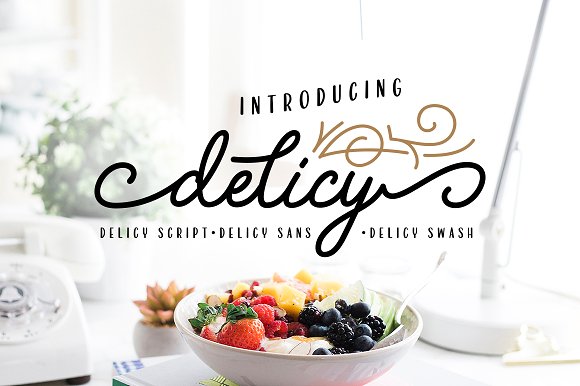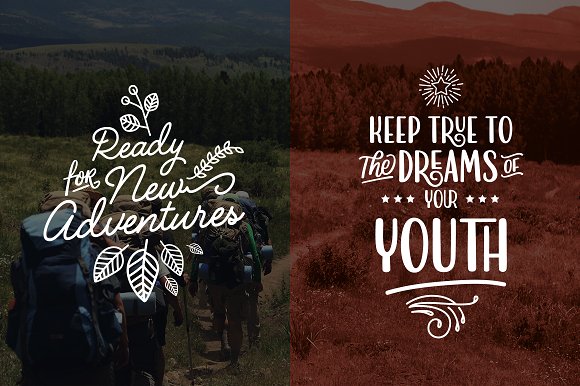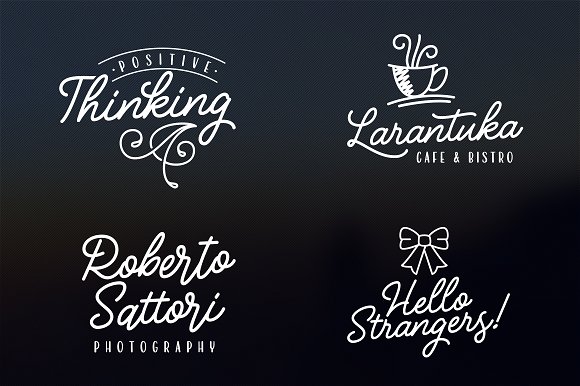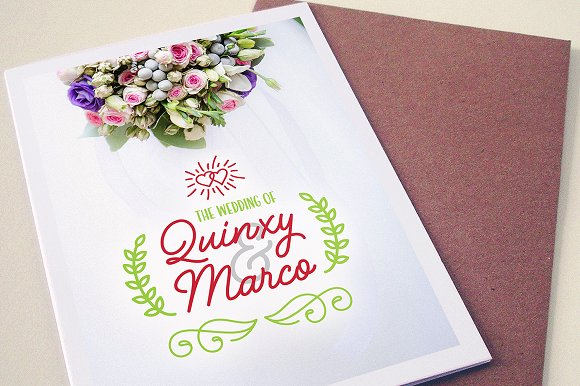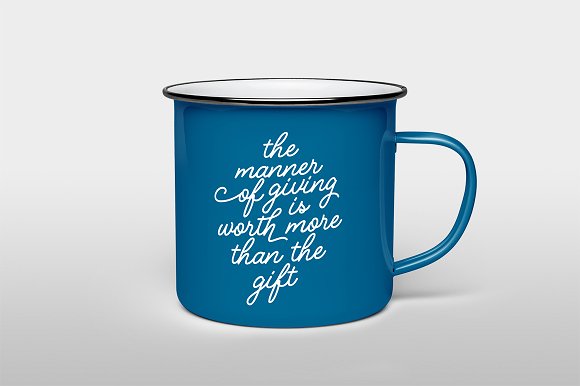
Delicy Script Font
Introducing Delicy, a font comes with an attractive package that combines three different font styles; script, sans and ornaments. With Delicy, you will more easily integrate typography in a variety of graphic design work.